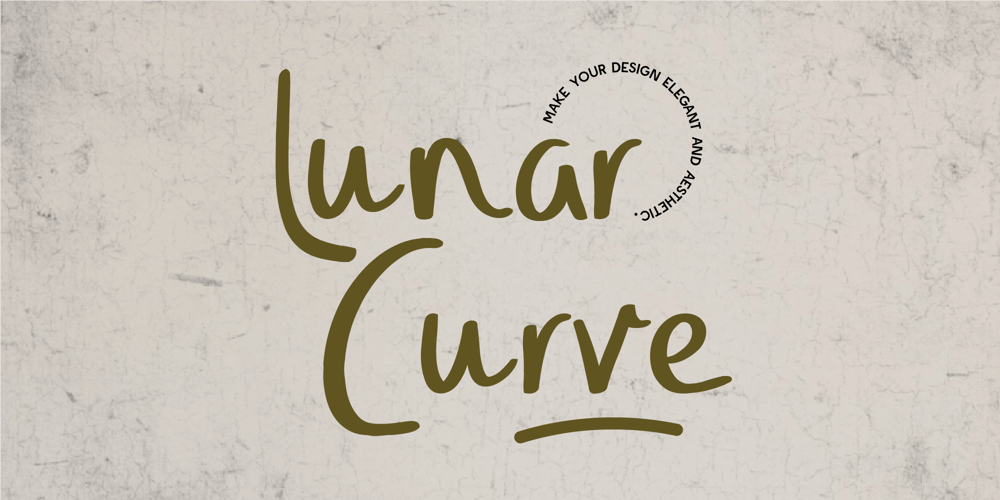
Lunar Curve Font Family was designed by Gilang Mei Nugraha, Frederik Aristaputra and published by Creatifont Studio. Lunar Curve contains 3 styles and family package options. Lunar Curve is a graceful handwritten font that brings together elegance and fluidity. Its gently curving strokes and smooth flow create a natural rhythm, offering a touch of casual beauty. Ideal for sophisticated design projects, Lunar Curve delivers an effortlessly refined look, while its subtle charm adds warmth to any creative work. Perfect for logos, invitations, and branding that call for a stylish yet approachable feel.A SUMMARY OF WHAT’S INCLUDED: Standard Character A-Z, a-z, 0-9, Punctuation & symbols Regular, Italic and Bold Alternates and Ligatures Multilingual Support Works on PC & Mac Simple installation Accessible in Adobe Creative Suite (Ai, Ps, Id, etc.) even work on Microsoft Word. PUA Encoded Characters – Fully accessible without additional design software. 🌟If you come across any issues or notice anything we might have overlooked while using this product, please feel free to reach out to us. We greatly value your feedback as it helps us enhance and refine our products. Thank you!